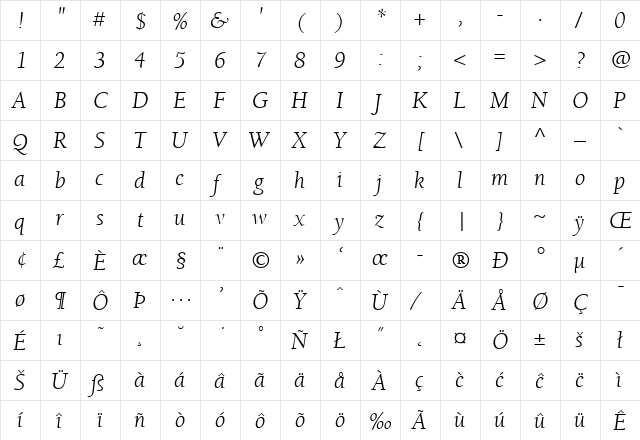
Berkeley-BookItalic Regular Font Preview
Berkeley-BookItalic Regular
Berkeley-BookItalic Regular Font Details
Design Context for Berkeley-BookItalic Typeface
Berkeley-BookItalic is a composed and adaptable typeface that performs quietly and consistently across a wide range of design contexts. The slanted form adds forward momentum and visual energy.
Pro Tip: Try Berkeley-BookItalic for annotation and caption copy alongside an upright companion — the contrast in angle creates a dynamic but ordered typographic system.